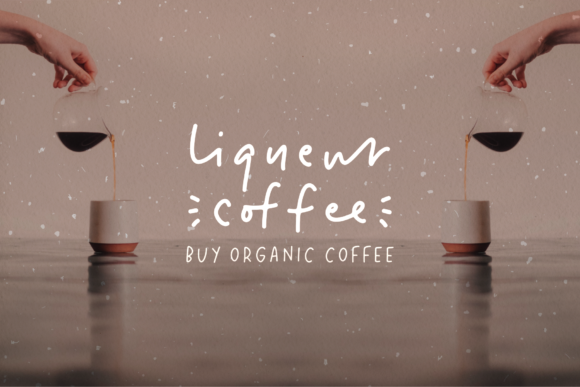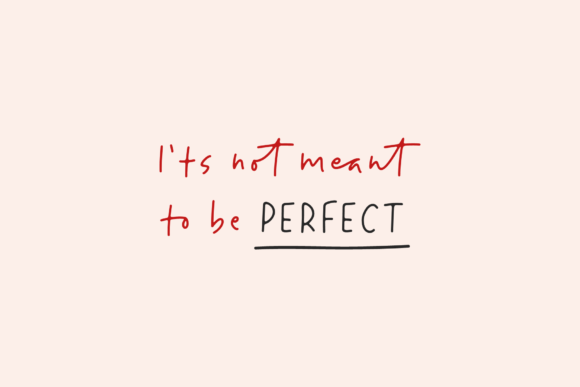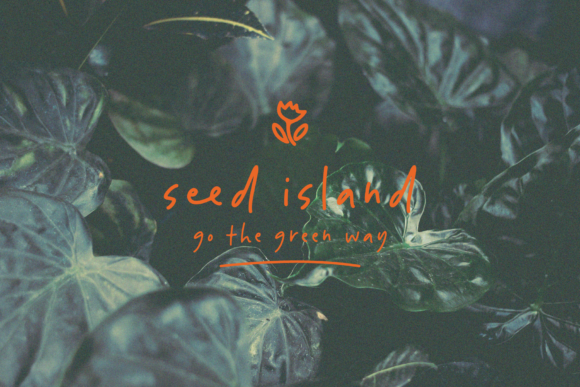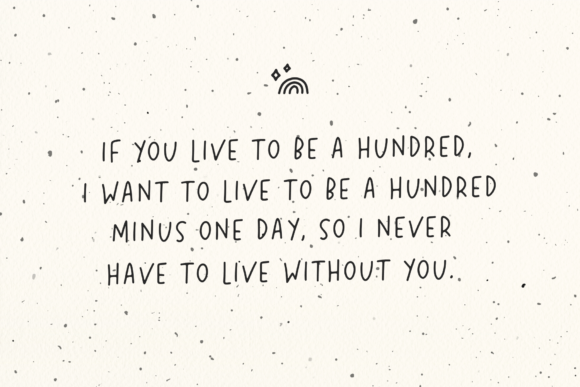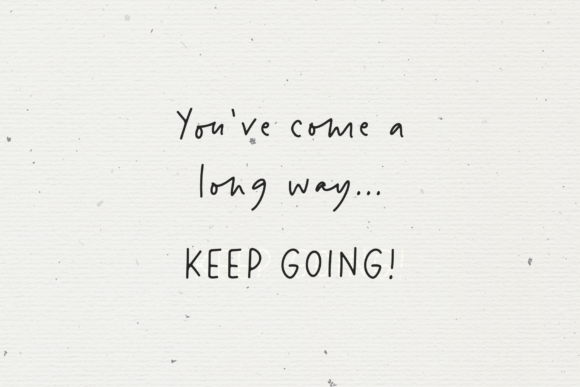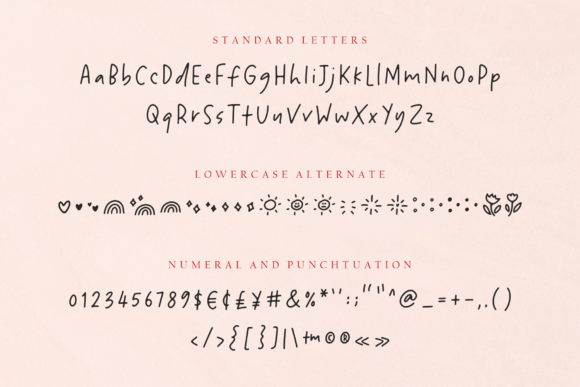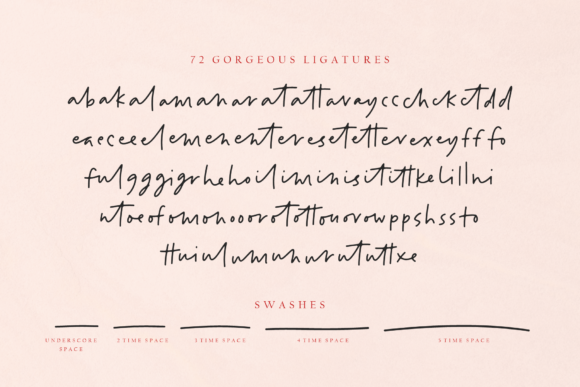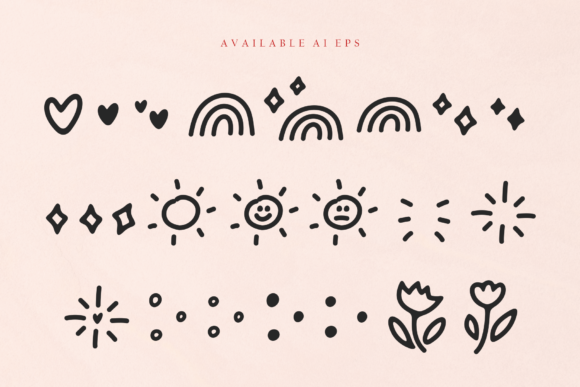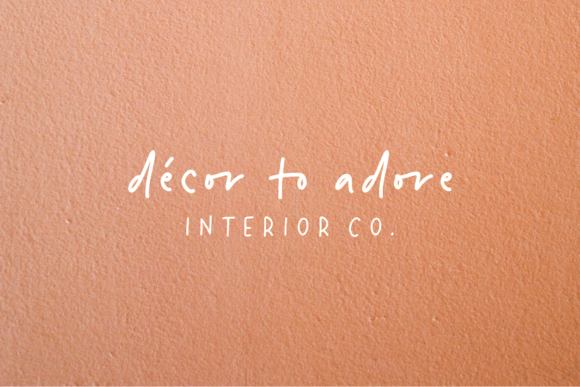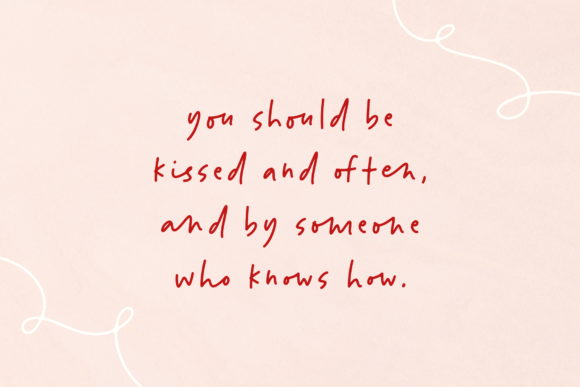
Cheerful Monday Font
About Cheerful Monday Font
Cheerful Monday is an incredibly natural and sweet handwritten font. Whether you use it for cartoon related designs, children games or just any creation that requires a lovely touch, this font will be an amazing choice.